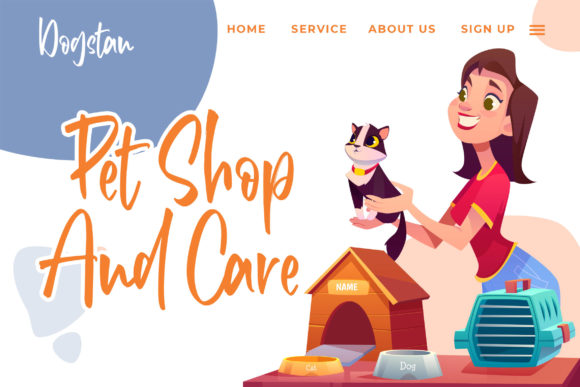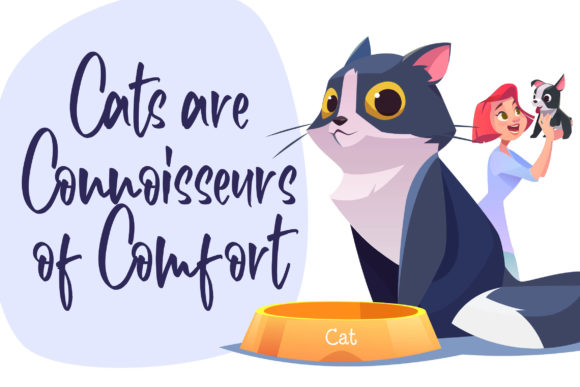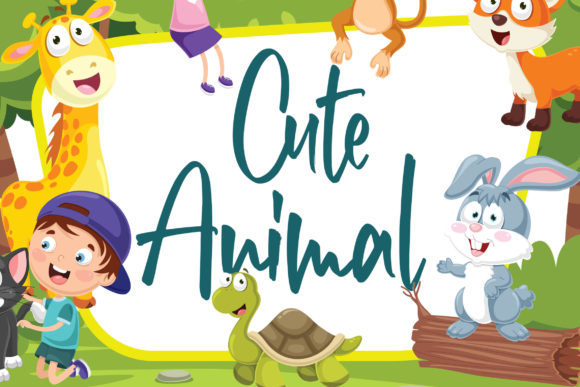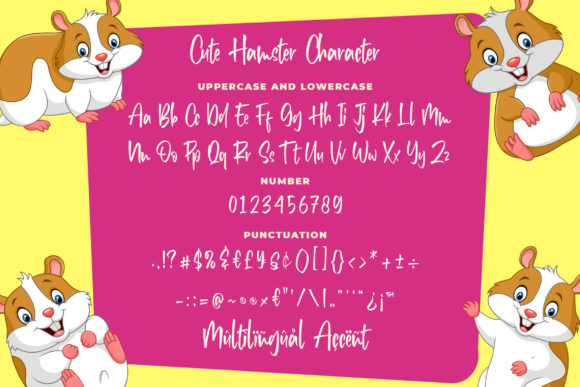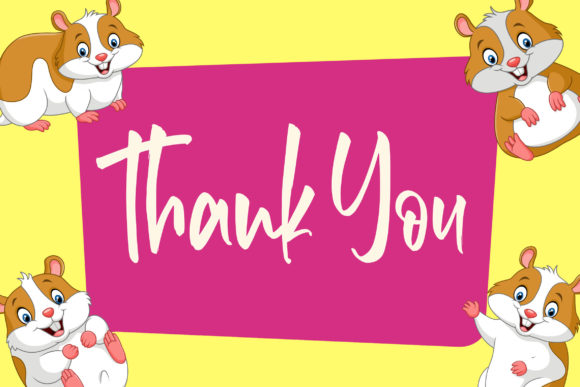
Meet Your New Best Friend: Cute Hamster Font
Have you ever been stuck in a creative rut, staring at a blank page, desperately searching for the perfect font to bring your design idea to life? We’ve all been there! It’s like trying to find the missing piece of a puzzle that makes everything fall into place.
Enter Cute Hamster Font, the perfect companion for designers looking to add a touch of whimsy and charm to their work. This delightful display font is designed to be the star of the show, making any design idea a true standout. Whether you’re working on a children’s book, a social media campaign, or a marketing brochure, Cute Hamster Font is the perfect addition to elevate your design game.
- Unique Characteristics: The Cute Hamster Font features a unique, hand-drawn design with rounded edges and cute details, making it perfect for creating whimsical and playful designs.
- Kerning and Ligatures: The font includes advanced kerning and ligature pairs, ensuring smooth and natural text rendering, even at small font sizes.
Cute Hamster Font Review
Overall, I was quite excited to try out the Cute Hamster Font. Here are my honest thoughts:
- Whimsical feel: The font’s playful, rounded design perfectly captures the ‘cute’ aspect, making it perfect for kids’ books, stationery, or any project that requires a lighthearted tone.
- Consistency: The font’s design is consistent across different font sizes and styles, which is a plus for designers who want to maintain a cohesive look.
- Clear readability: Even at smaller font sizes, the letters remain easy to read, making it suitable for body text and headings.
- Limited flexibility: The font’s playful design might not be the best fit for more formal or professional projects, where a more serious tone is required.
- Not ideal for long texts: The font’s design can make long blocks of text feel cluttered, so it’s best used for shorter passages or titles.
Overall, I think the Cute Hamster Font is a great addition to any designer’s toolkit. While it may not be suitable for all projects, it’s perfect for those that require a lighthearted, playful touch. Just remember to use it thoughtfully and in moderation.
Tips for Getting the Most Out of Cute Hamster Font
1. Use it for whimsical designs, such as children’s books or party invitations.
2. Combine it with cute illustrations or graphics to create a playful atmosphere.
3. Experiment with different font sizes and colors to create visual interest.
Alternatives to Cute Hamster Font
Oswald
Oswald is a sans-serif font that is perfect for use in digital media, such as websites and mobile apps. It is clean, modern, and highly legible. Oswald is a great alternative to Cute Hamster Font because it has a similar sans-serif feel, but with a more professional tone. It is suitable for headings and body text.
Lato is a modern sans-serif font that is highly versatile and can be used for a wide range of applications, from digital media to print. It has a friendly and approachable feel that is similar to Cute Hamster Font, but with a more sophisticated tone. Lato is suitable for headings, body text, and captions.
Alegreya Sans
Alegreya Sans is a sans-serif font that is designed to be highly legible and easy to read. It has a clean and modern feel that is similar to Cute Hamster Font, but with a more elegant tone. Alegreya Sans is suitable for headings, body text, and captions.